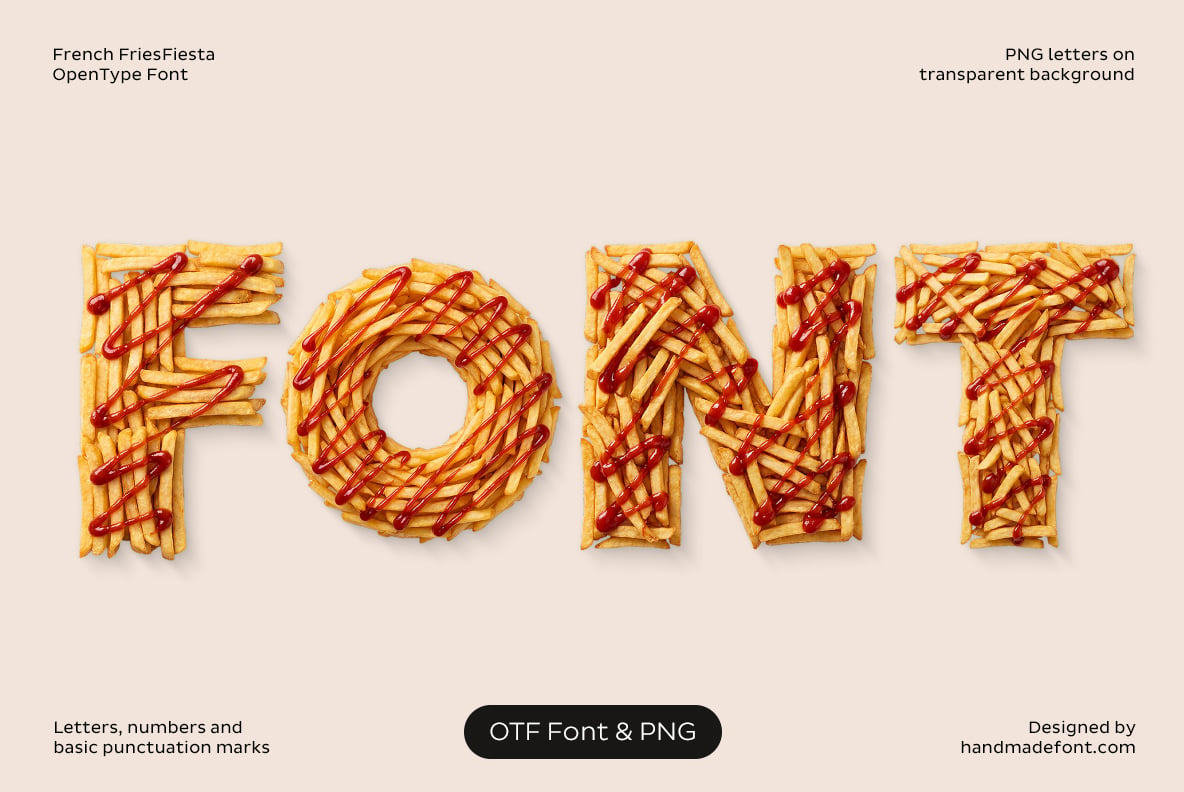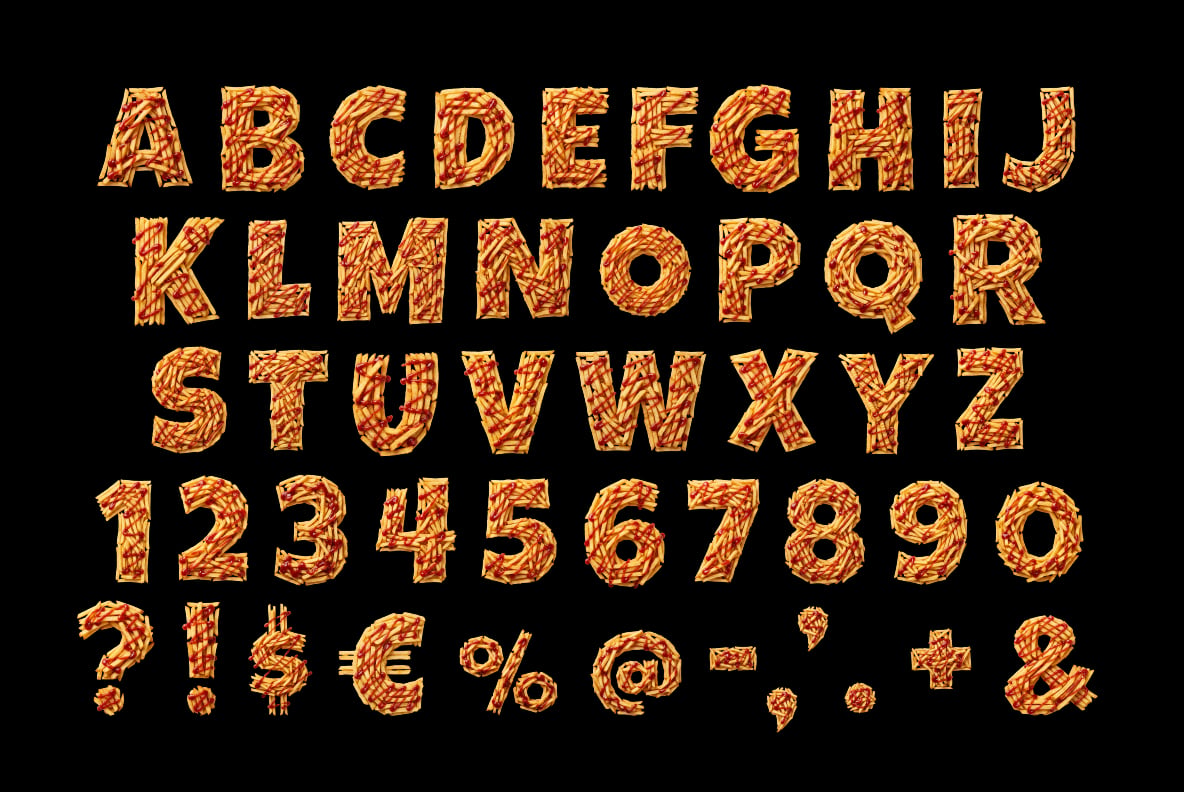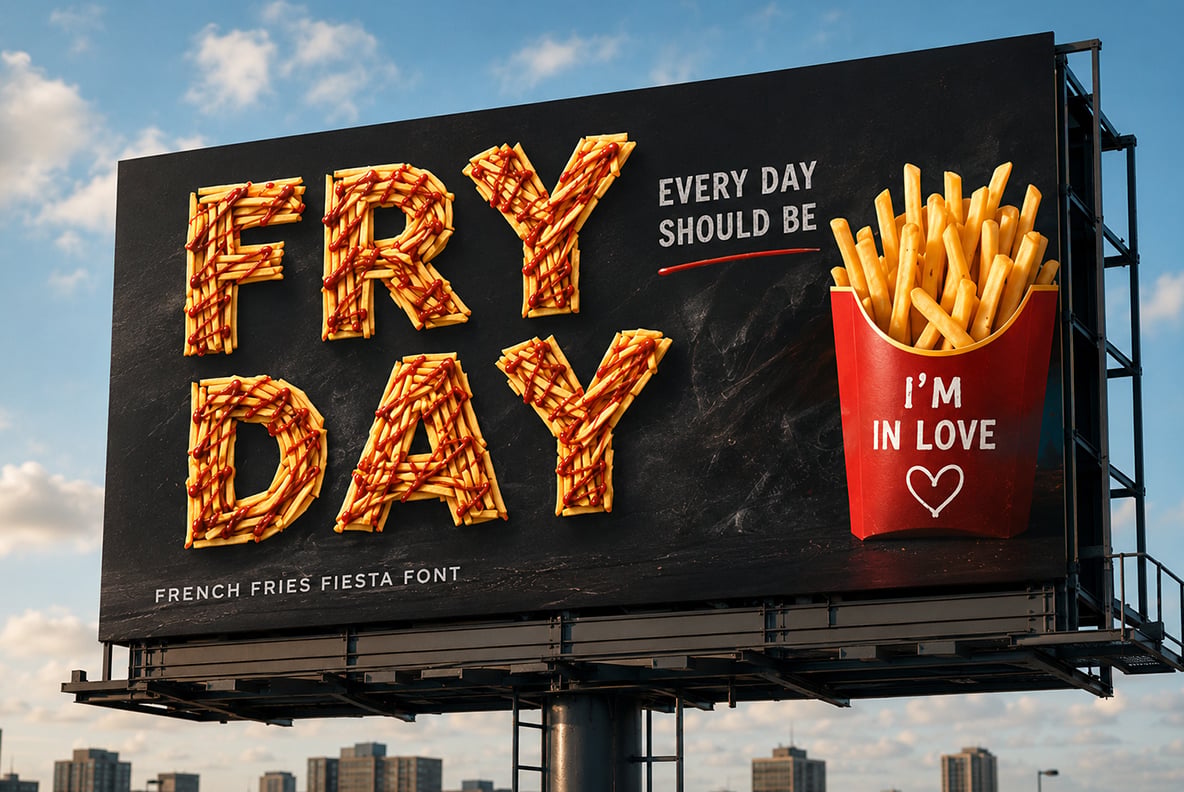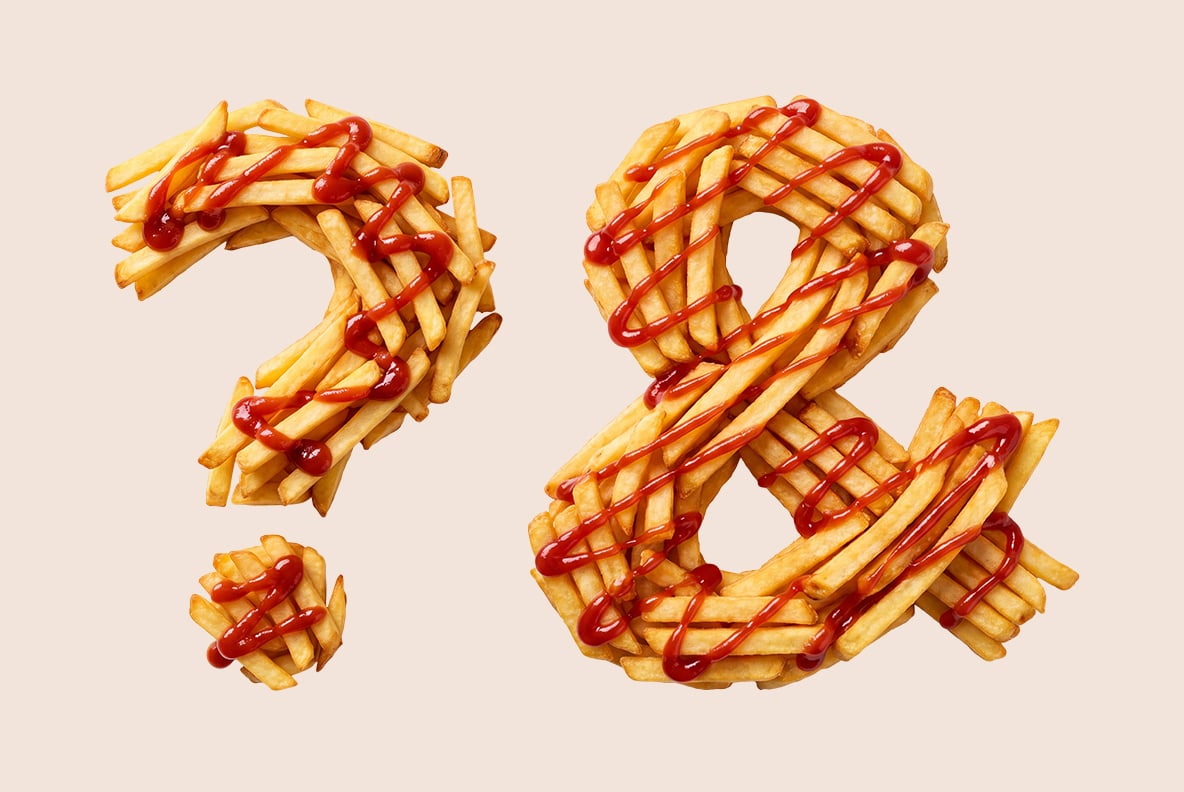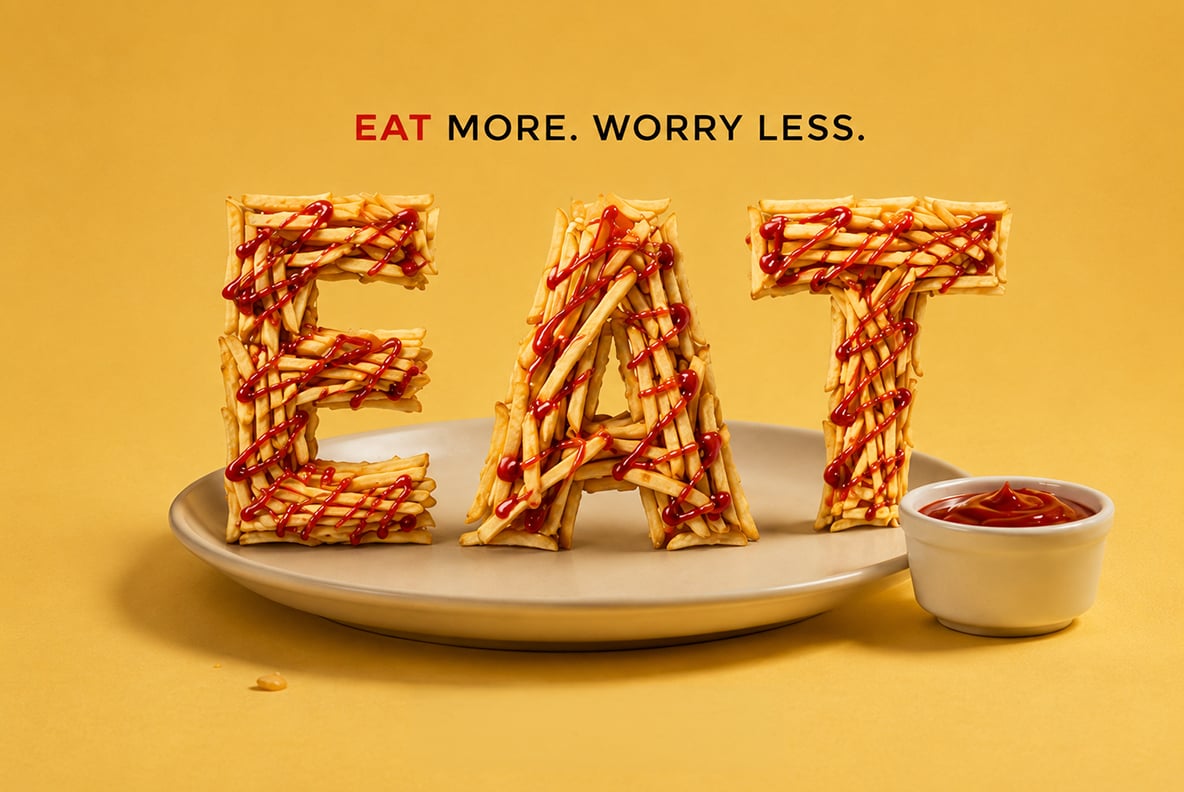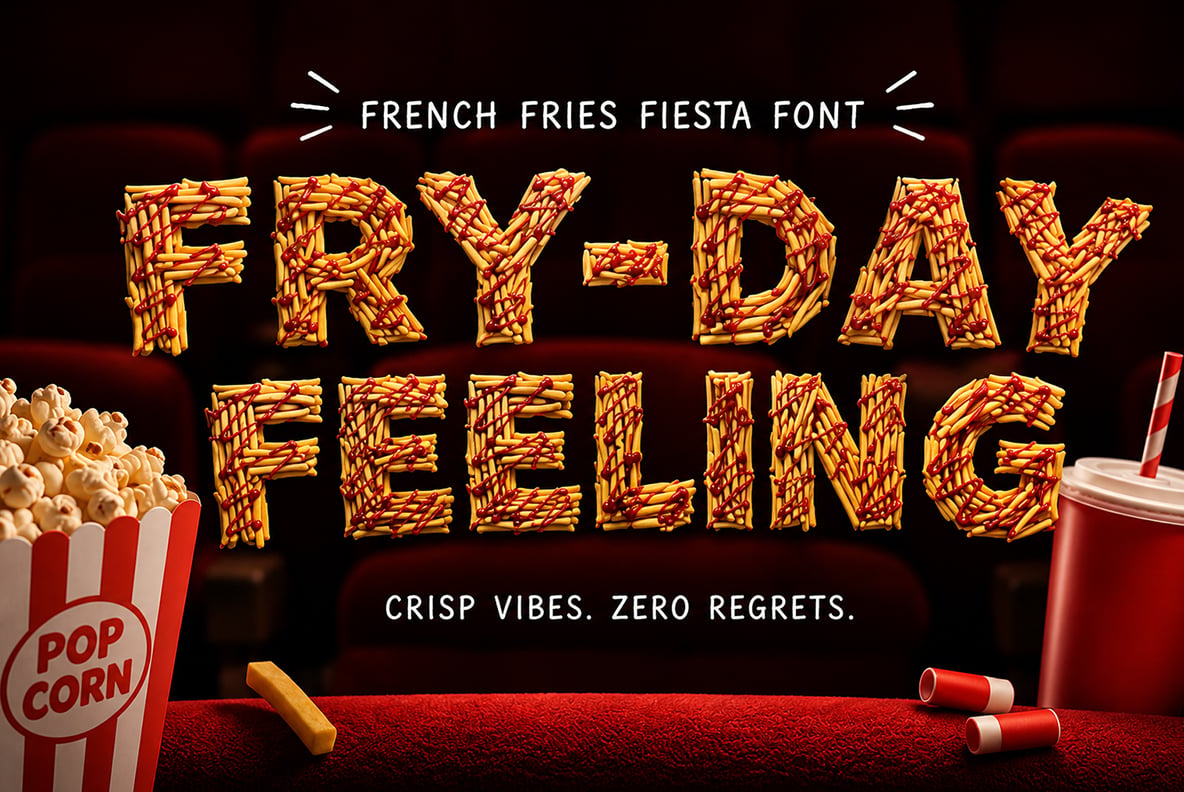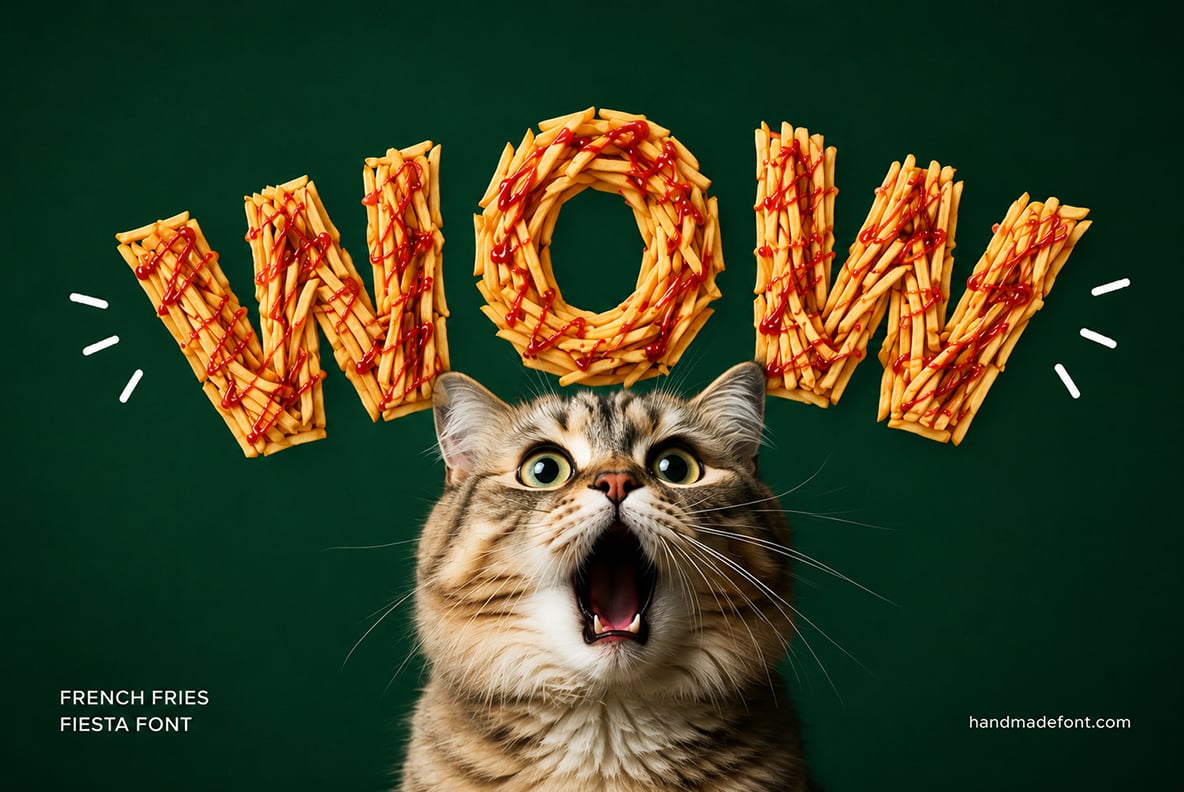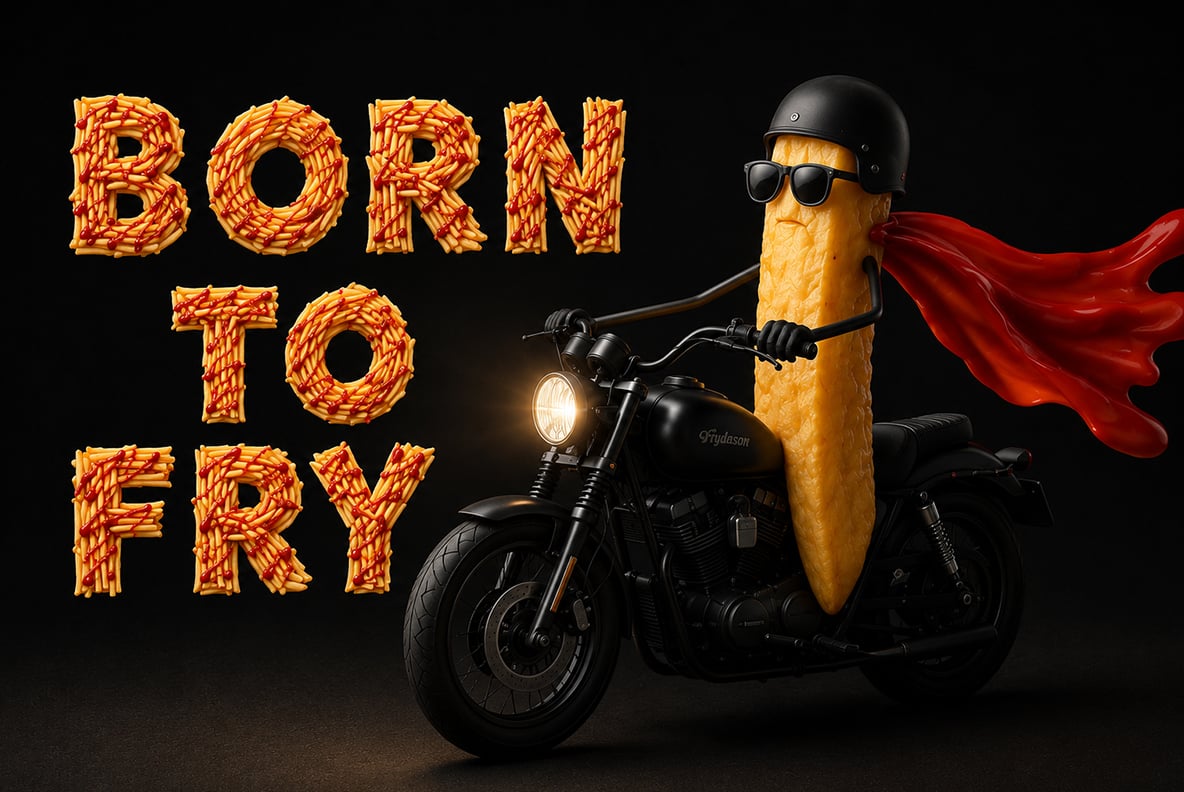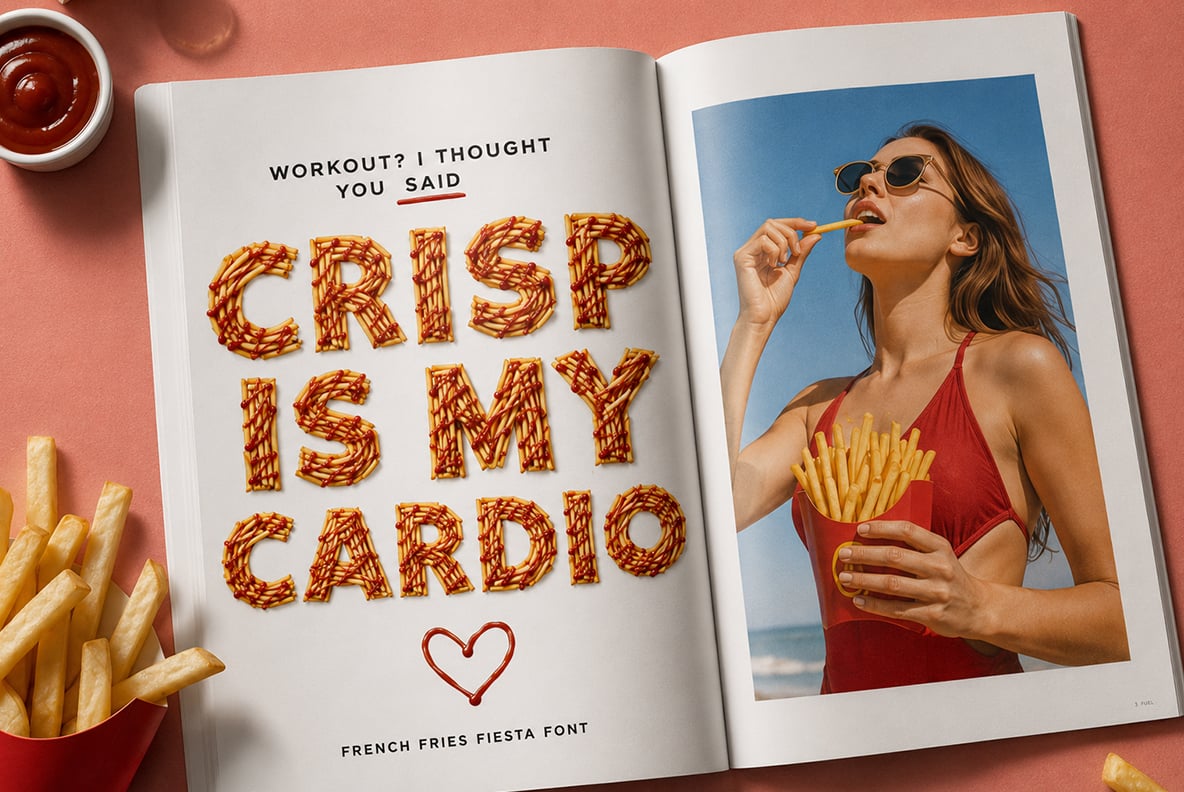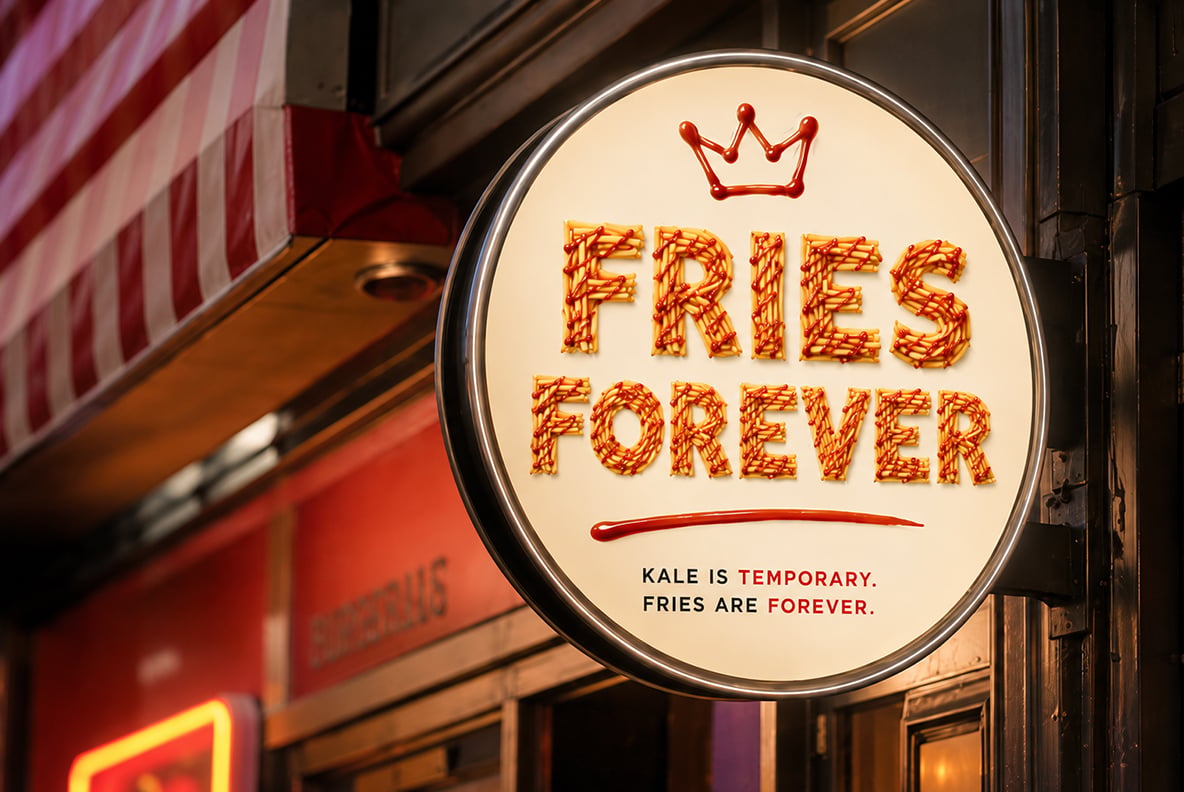
French Fries Fiesta Font
French Fries Fiesta Font is a deliciously playful typeface made entirely from crispy golden French fries drizzled with ketchup. Perfect for food branding, restaurant menus, packaging, posters, social media graphics, and eye-catching advertising, this font instantly adds flavor and humor to any design. The package includes a fully functional OpenType (OTF) font and separate PNG files for every letter, number, and symbol on a transparent background. Whether you're creating a fast-food promotion or a fun creative project, French Fries Fiesta Font serves up bold personality with every character.